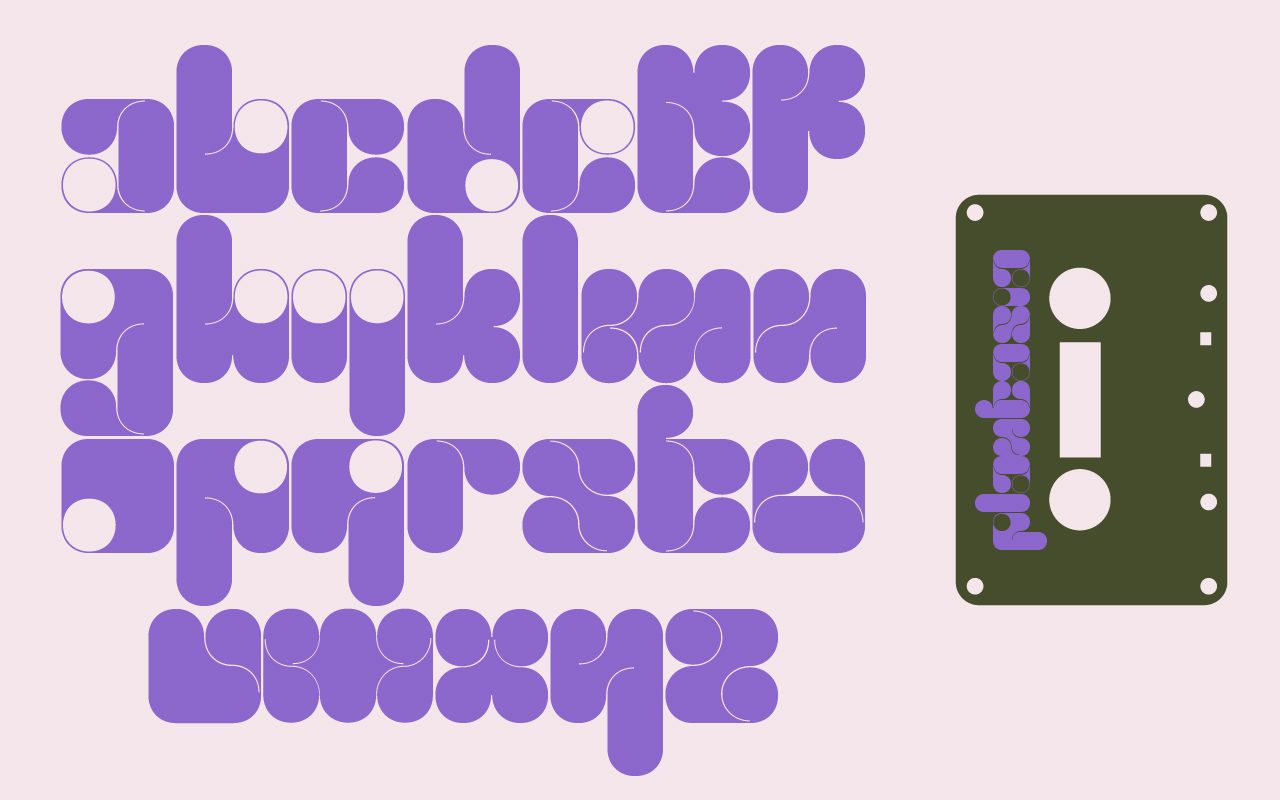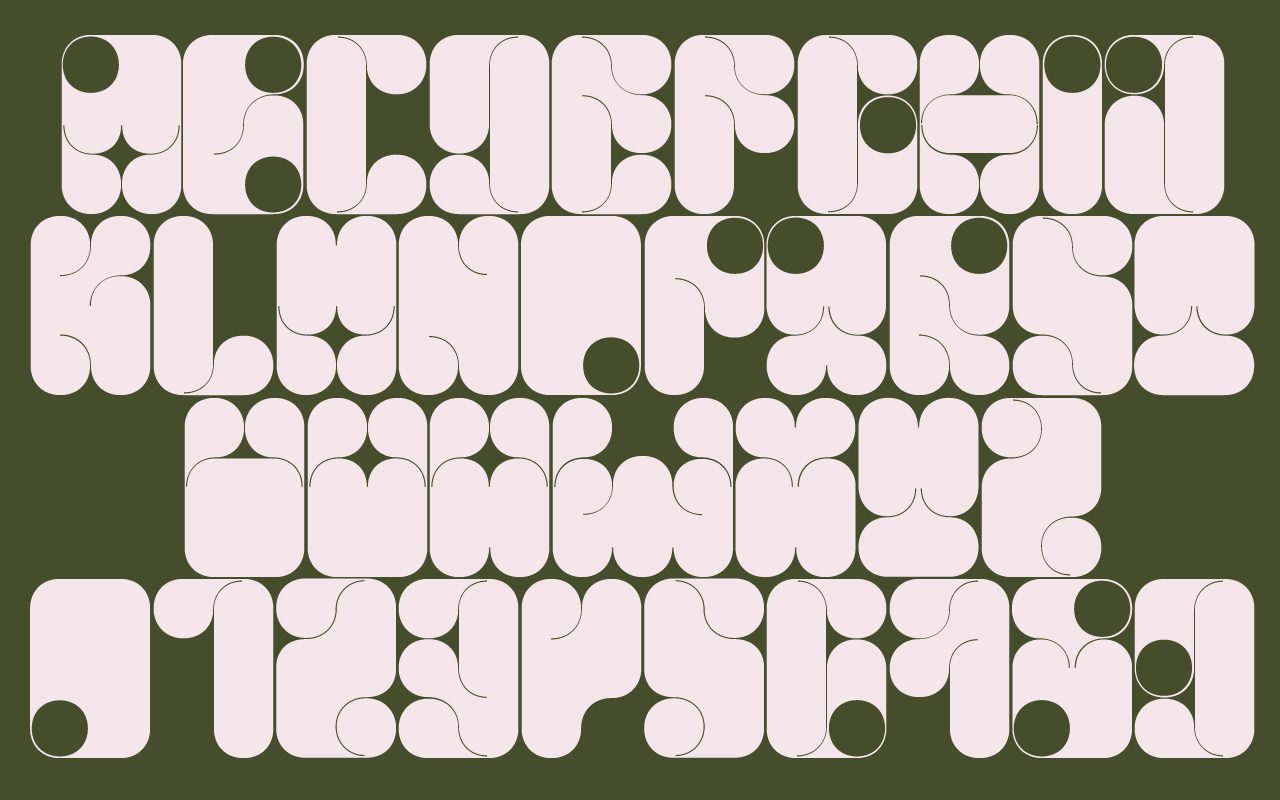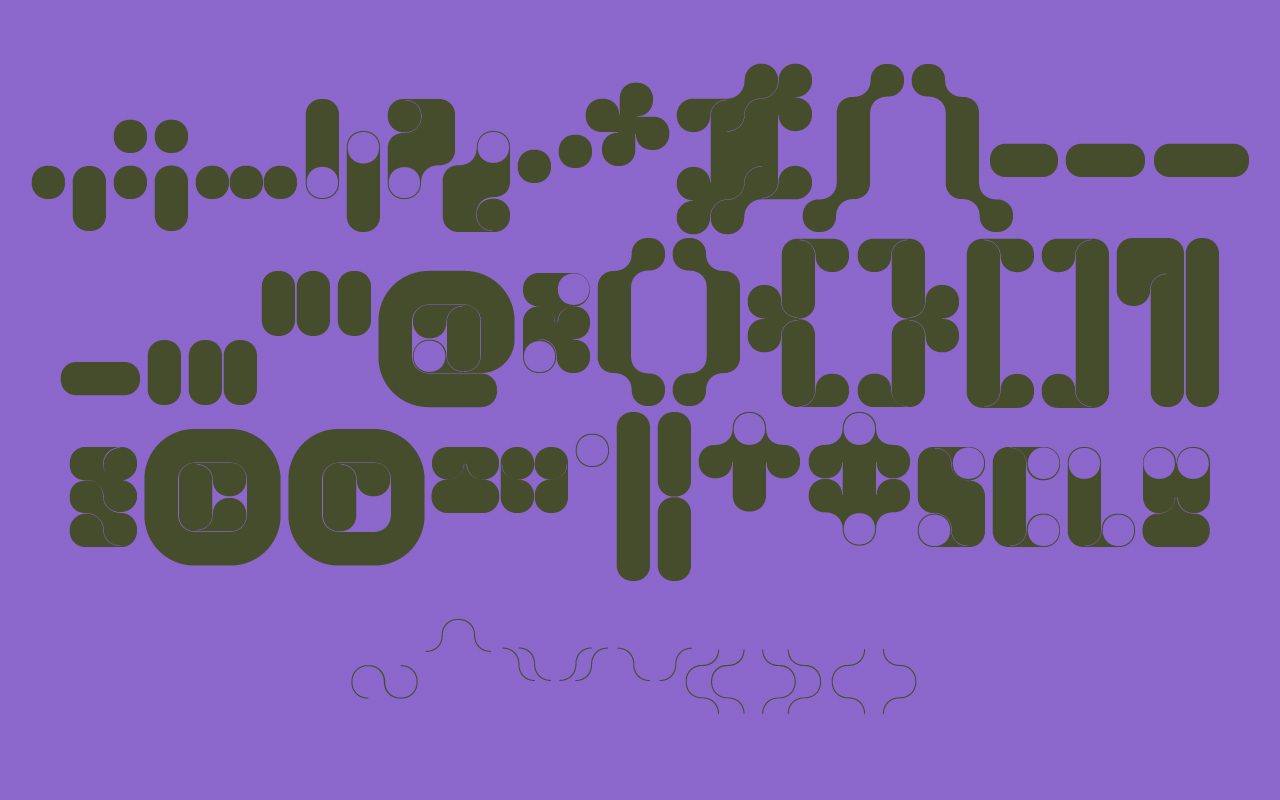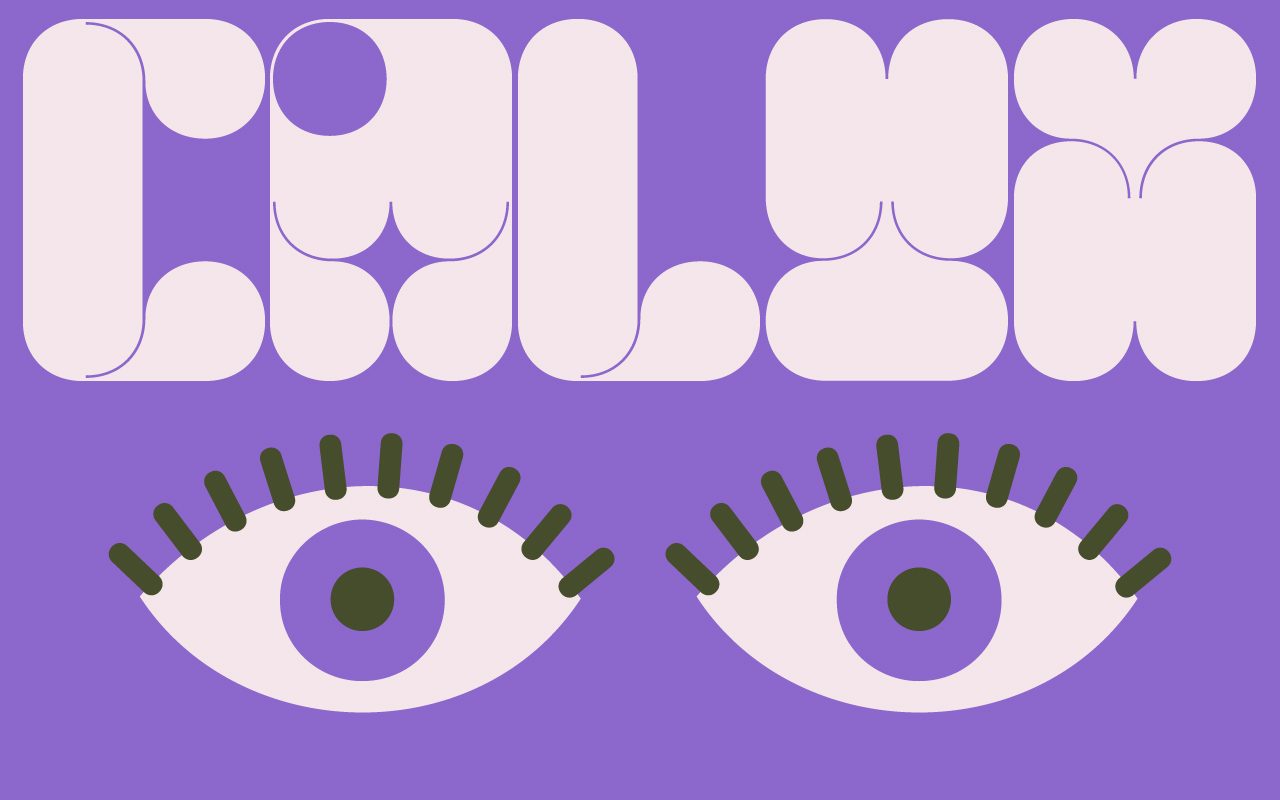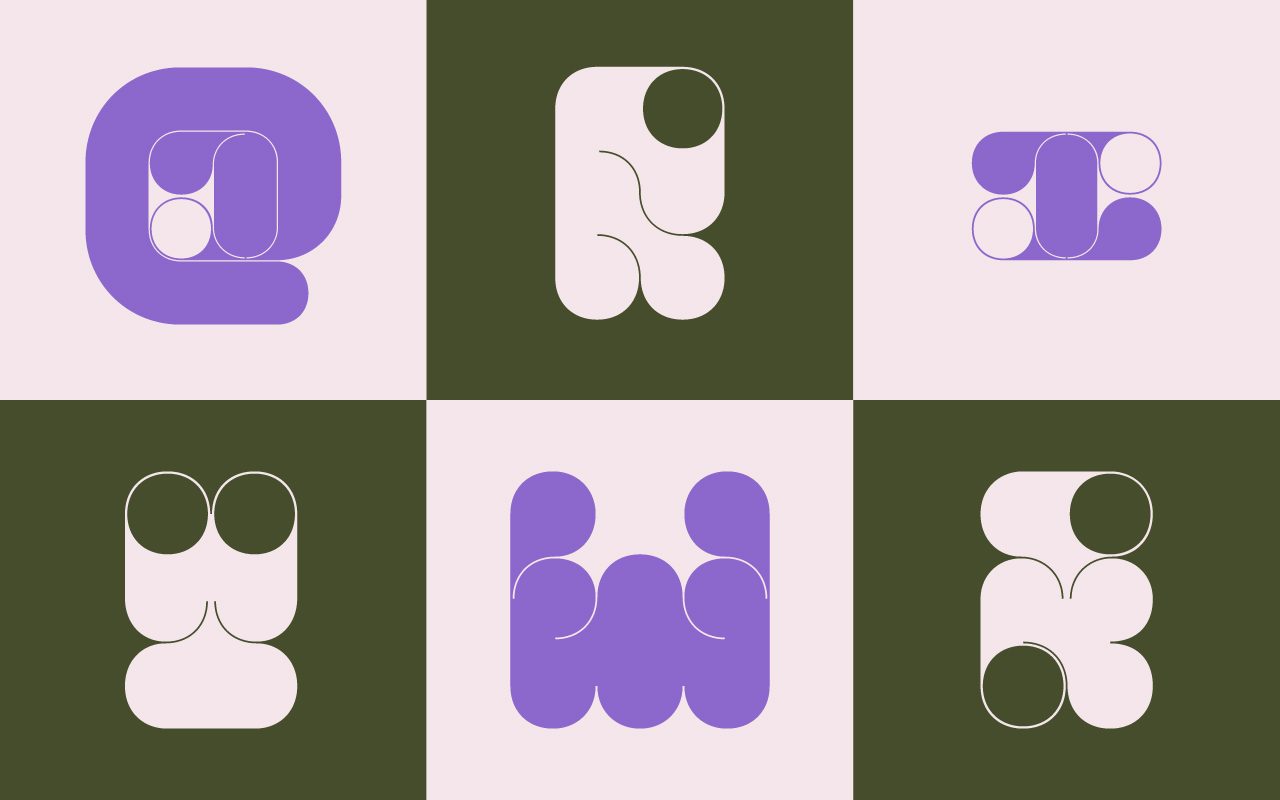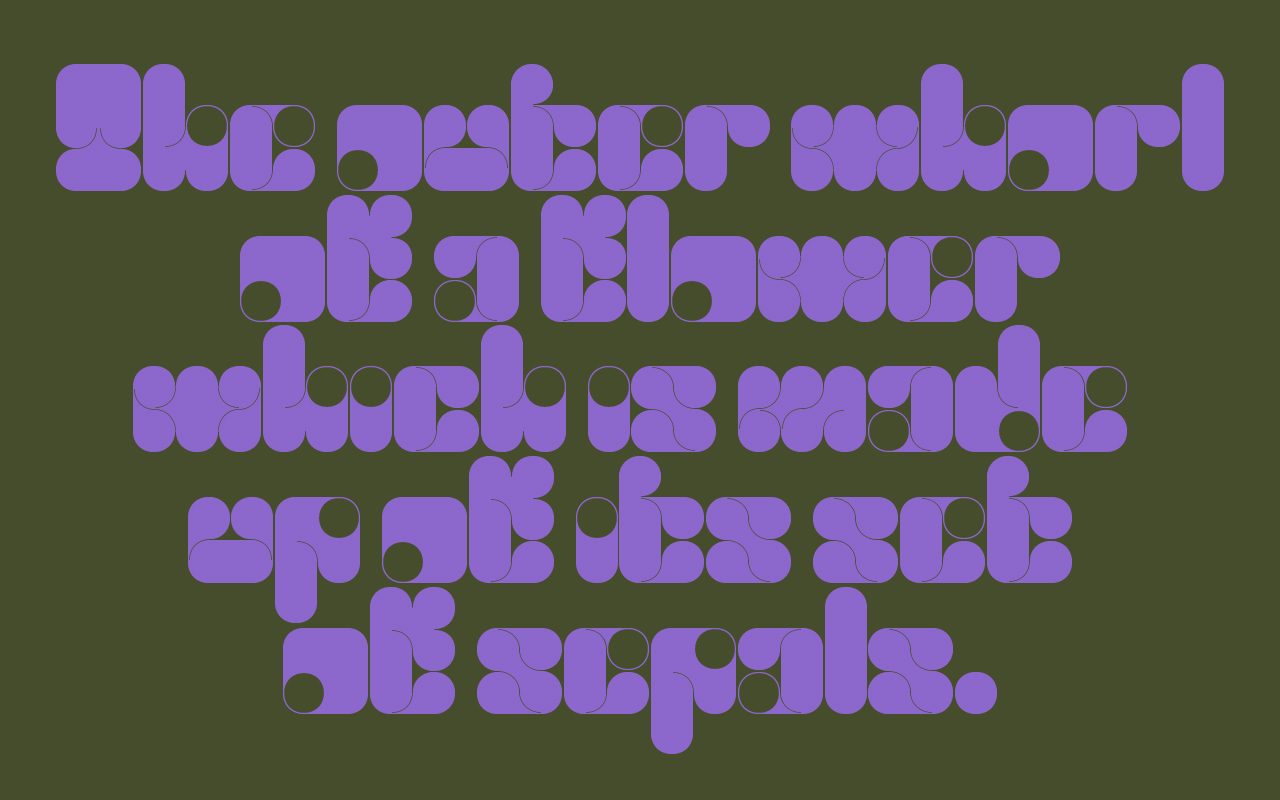
Calyx
Calyx is a blocky/modular typeface inspired by botanical shapes, precisely by flower petals. Its generous chunky shapes are carefully crafted to give a 60s and 70s vibes. Calyx aims to bring your inner child in playful contemporary designs, with a healthy dose of retro feel. Its display capacities make it perfect for headlines and graphic explorations. Though Calyx features only one weight, its modular and uniquely shaped glyphs will bring high characteristics to any design it's being used for.